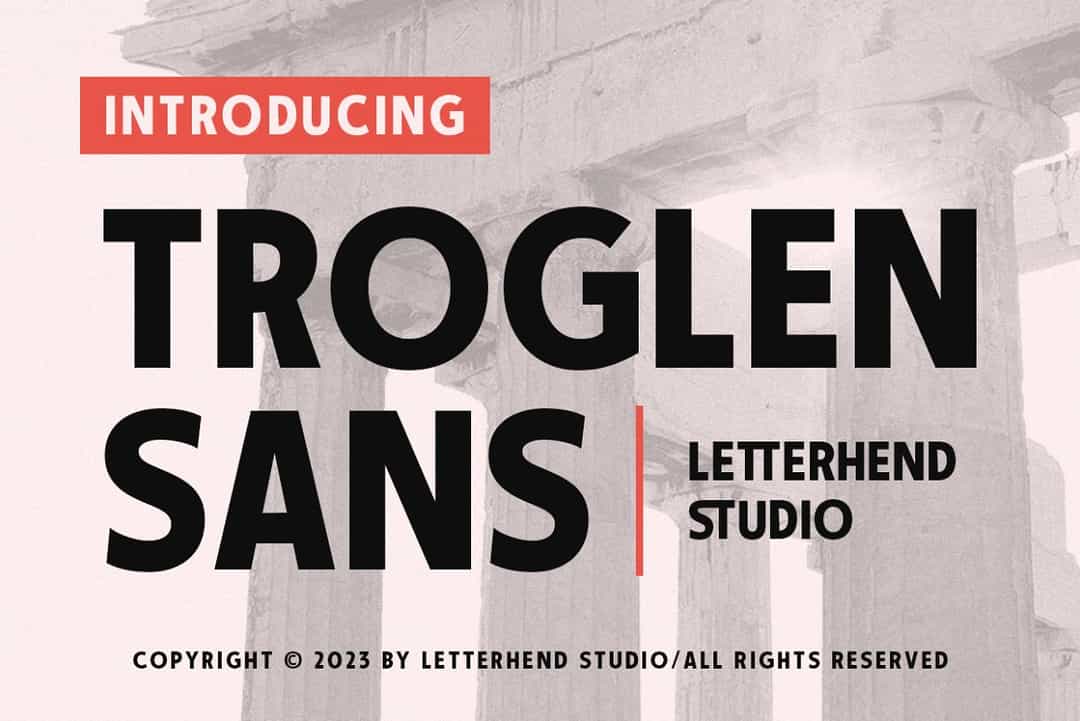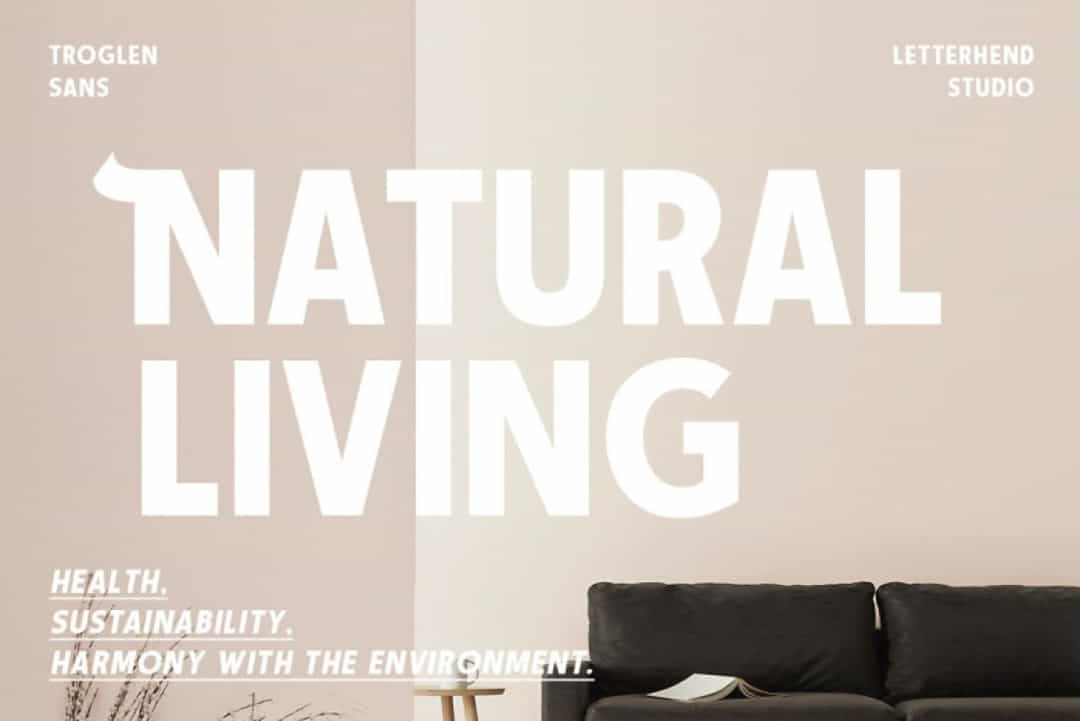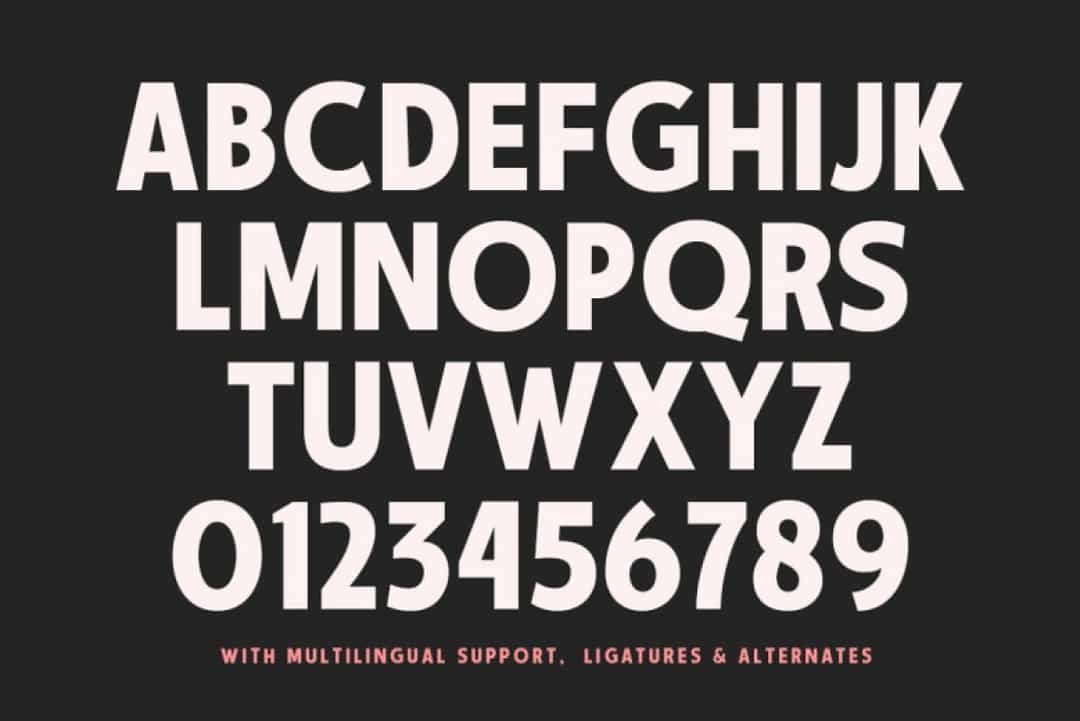
Troglen Sans is an elegant yet powerful sans serif font designed to stand out. Featuring casual modern look with thick strokes that make an impactful statement about its own boldness. Perfect for headlines or confident statements.